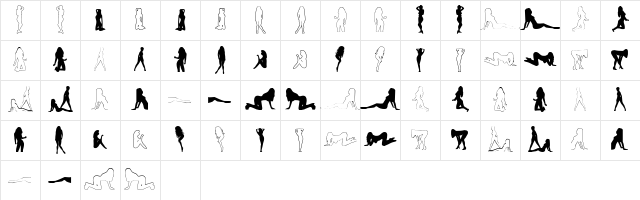
Babe-alicious Regular Free Font
Babe-alicious Regular
Babe-alicious Family
Complete Babe-alicious Regular glyph index. Displaying only characters natively supported by Babe-alicious Regular font.
Design Context for Babe-alicious
Babe-alicious is a composed and adaptable typeface that performs quietly and consistently across a wide range of design contexts.